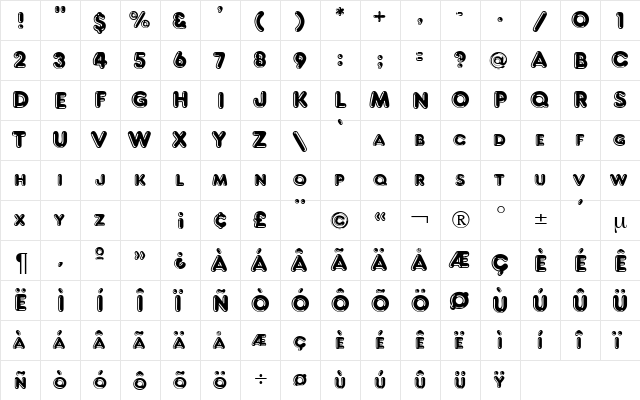
FragileDB Normal
Design Context for FragileDB Typeface
FragileDB is a composed and adaptable typeface that performs quietly and consistently across a wide range of design contexts.